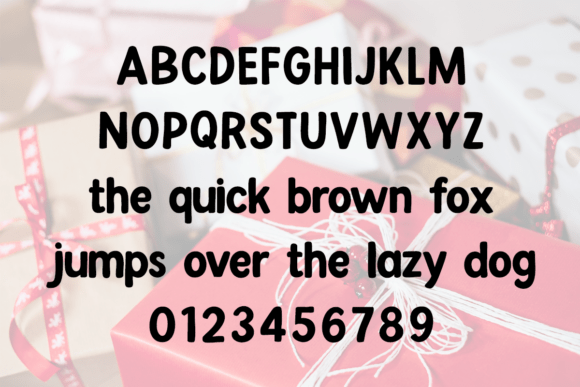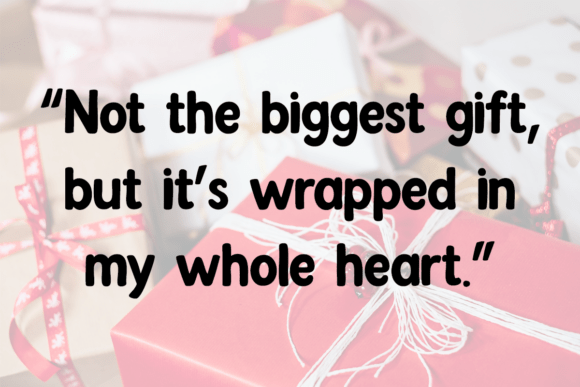
Introduction to Shopping for Gifts Font
Have you ever found yourself brainstorming ideas for the perfect Christmas card design, only to be stuck on the font? You know, that one element that can make or break the overall aesthetic of your project? It’s moments like these that remind us of the importance of having a reliable design resource at our fingertips. And that’s exactly where the Shopping for Gifts Font comes in – a bold, playful handwritten font that’s sure to bring a smile to your face.
Perfect for designers looking to add a touch of warmth and coziness to their festive projects, the Shopping for Gifts Font features rounded shapes and a friendly feel that’s simply irresistible. With a transparent background, this font is easy to use on any design surface, making it a valuable addition to any creative project. And the best part? It’s available for free download, ensuring that you can bring your ideas to life without breaking the bank.
Honest Review: Shopping for Gifts Font
I recently stumbled upon the Shopping for Gifts Font and I must say, it’s a great addition to any design resource collection. As a designer, I appreciate fonts that are both visually appealing and versatile. This font fits the bill perfectly.
One of the standout features of this font is its ability to be used on a transparent background, making it a great choice for creative projects that require a clean and modern look. The font itself is highly legible and comes in a range of weights, making it easy to use in a variety of contexts.
- ⚠️ Not suitable for use in large blocks of text (due to its modern, decorative design)
Overall, I’m impressed with the Shopping for Gifts Font. It’s a great choice for designers looking for a high-quality font that’s perfect for creative projects. While it has some limitations, it’s a free download and well worth the investment of time to learn more about its capabilities.
The Shopping for Gifts Font is a versatile design resource ideal for creative projects. This font is available for free download and features a transparent background, making it easy to use in various design applications.
The Shopping for Gifts Font is suitable for various creative projects, including greeting cards, invitations, and promotional materials. Its high quality and transparent background make it an excellent choice for designers looking for a versatile and stylish font.